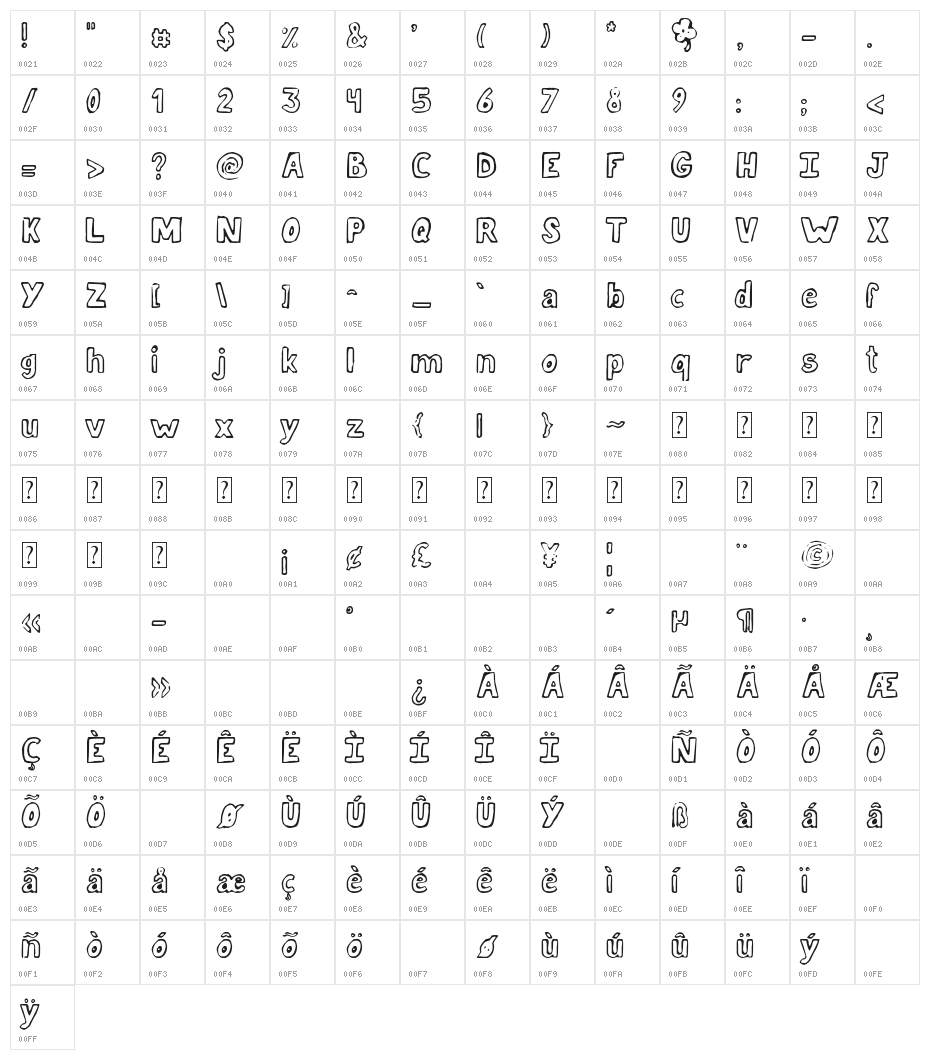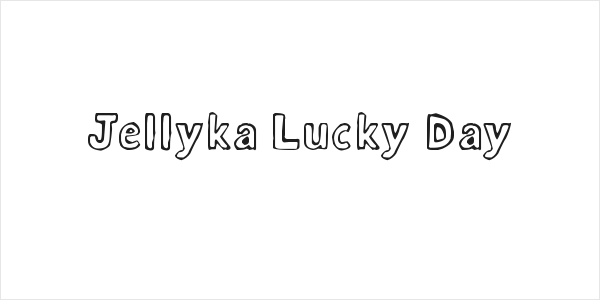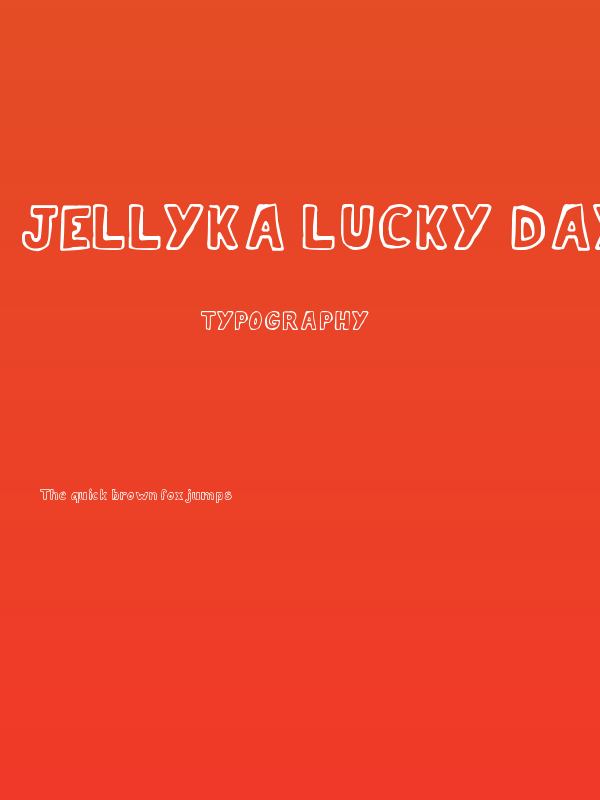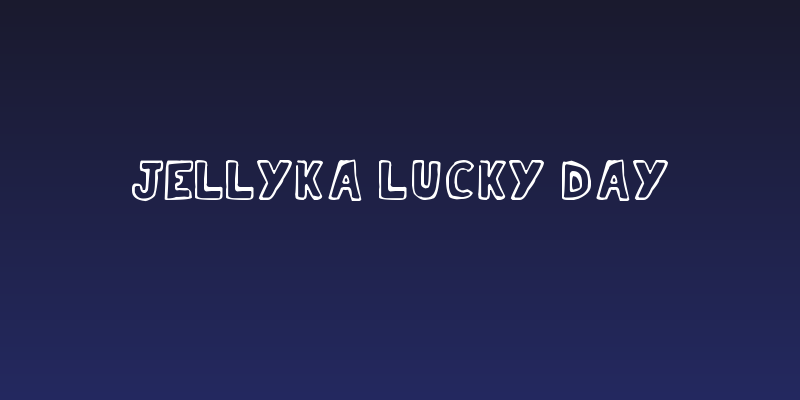
Jellyka Lucky Day Font
Jellyka Lucky Day Description
This playful and whimsical font features a hand-drawn, outlined style that gives it a unique and casual appearance. The characters are bold and rounded with a slightly uneven, organic feel, reminiscent of doodles or sketches. The uppercase and lowercase letters maintain a consistent style, with the uppercase being slightly larger and more pronounced. Numbers and special characters follow the same playful design, making the font versatile for creative projects. The overall look is informal and friendly, perfect for adding a touch of fun to any design.
| Proposed Projects | Ideal for children's books, playful branding, greeting cards, and creative posters. |